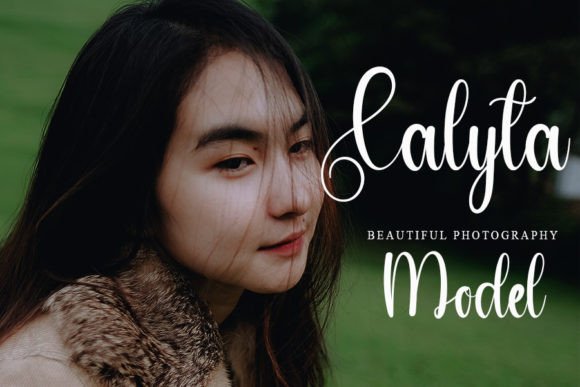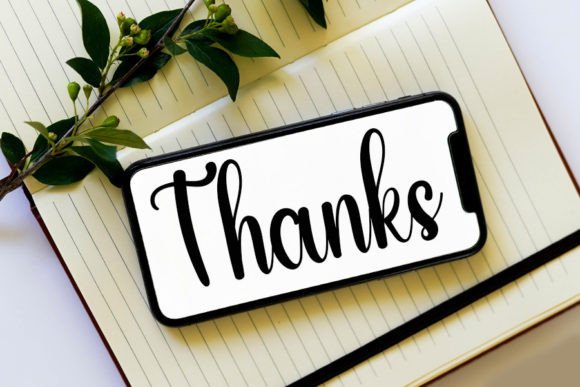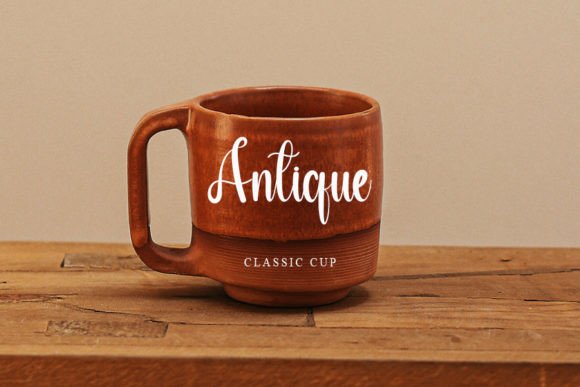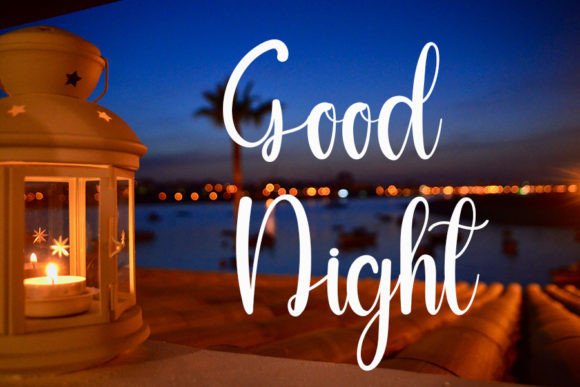
Love Story Font
About Love Story Font
Love Story is a neat and beautiful handwritten font that captivates with its elegant touch. This font is a perfect choice for a variety of projects, boasting an incredibly distinct and timeless style that will elevate your designs to new heights.
The clean and organized appearance of Love Story makes it a versatile option for different contexts. Whether you’re working on invitations, labels, packaging, logos, fashion, stationery, or other design projects, Love Story brings a touch of sophistication and beauty.
Its distinct and timeless style adds a classic charm to your creations, making them stand out with a sense of refinement. Love Story is not just a font; it’s a design tool that allows you to infuse elegance into your favorite projects.
In the realm of invitations and greeting cards, Love Story enhances the overall aesthetic, creating visually appealing and beautifully crafted pieces for special occasions. Its elegant touch makes it suitable for weddings, parties, and formal events.
For branding and logo design, Love Story becomes a standout choice. Its distinct and neat handwritten style adds a personal touch and authenticity to your brand identity, helping it leave a lasting impression.
In the world of digital designs, social media graphics, and online presence, Love Story stands out with its clean and beautiful appearance. It brings a sense of sophistication to Instagram posts, websites, cartoons, YouTube content, and more, making your online content visually appealing.
Whether used in literature, magazines, or books, Love Story’s distinct and elegant touch adds a refined aesthetic to the text, enhancing the overall reading experience.
The adaptability of Love Story extends to various design projects where its neat and beautiful handwritten style ensures that it stands out, creating spectacular and visually pleasing designs.
In summary, Love Story is a font that goes beyond being neat and beautiful; it’s a design companion that adds an elegant touch to your projects. Whether employed for invitations, branding, social media, literature, or other creative endeavors, Love Story brings a timeless and distinct style that transforms your designs into something truly spectacular.